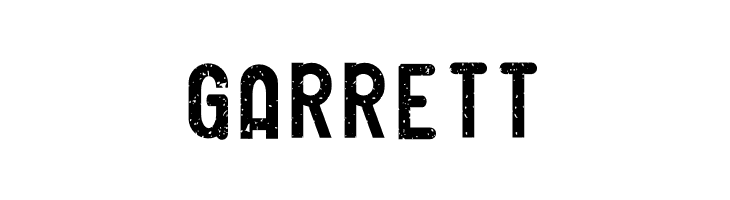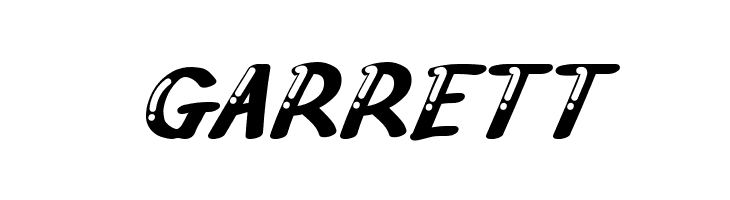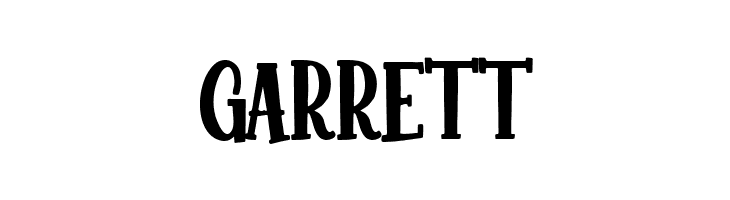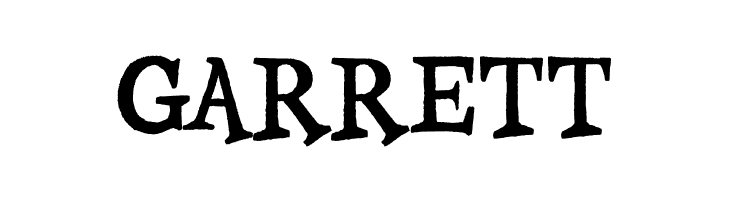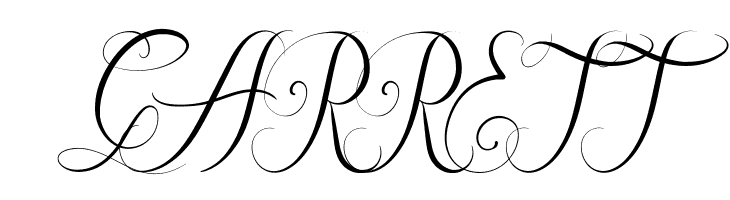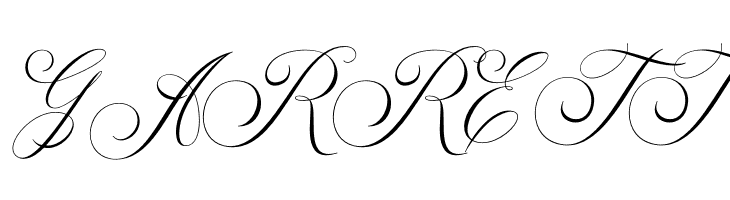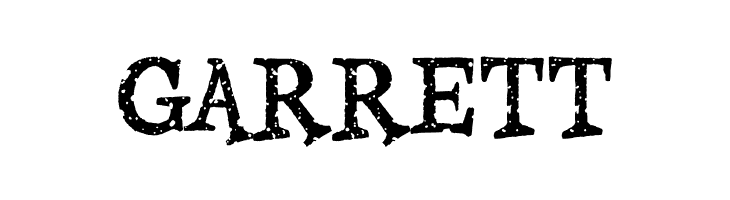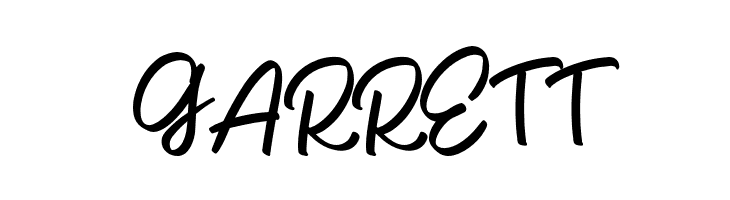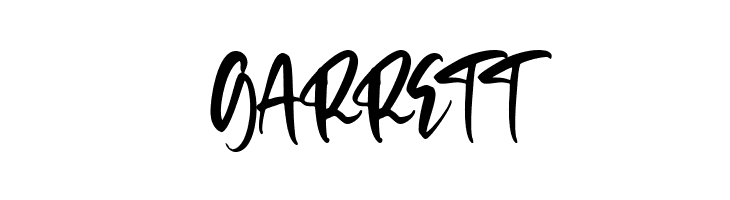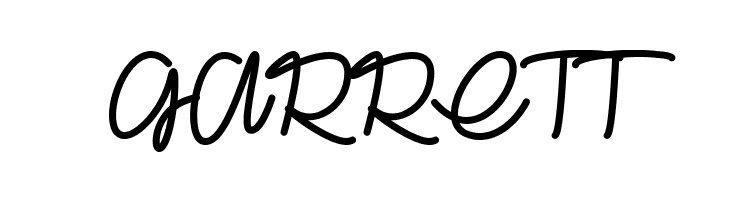
A bold, playful, and decorative font with a whimsical touch.
A flowing, cursive script font with a natural, handwritten style.
A decorative and artistic font with elongated, detailed letterforms.
An elegant script font with intricate swashes and high contrast, ideal for formal uses.
A bold, expressive script font with a hand-drawn, dynamic style.
A bold, geometric font with a modern, industrial look.
A bold, distressed font with a rugged, grunge appearance.
A bold, italic font with a modern and dynamic style.
A lively script font with smooth, connected strokes and elegant curves.
A bold, distressed font with a glitch effect for a modern, edgy look.
A playful and elegant handwritten script font with flowing lines and a cursive style.
A playful and energetic script font with fluid, continuous strokes.
A playful, handwritten script font with smooth, flowing characters.
Handwritten, tall sans-serif with playful, rounded forms.
Handwritten script with smooth, connected strokes and a casual, elegant vibe.
A lively, cursive font with fluid connections and medium contrast.
A playful and energetic script font with fluid, dynamic strokes.
A bold, dripping font with a playful, spooky aesthetic.
A playful, dripping font with a bold, cartoonish style.
A playful, hand-drawn font with tall, narrow letters and a whimsical style.
A distressed, textured font with a grunge-like aesthetic, ideal for edgy designs.
A playful, hand-drawn font with wavy lines and a spooky aesthetic.
A playful, bold font with rounded, bubble-like characters.
A bold, playful font with rounded, bubbly characters and a dynamic feel.
A playful, bubbly font with bold outlines and exaggerated curves.
A bold, italic outline font with a playful and dynamic style.
An elegant script font with intricate swashes and a calligraphic style.
A bold, decorative font with a playful highlight effect.
A lively and expressive handwritten font with fluid strokes.
A playful and elegant handwritten font with dynamic cursive letters.
A lively handwritten font with fluid, cursive strokes and a personal touch.
An elegant, flowing script font with decorative loops and swirls.
A classic serif font with elegant strokes and medium contrast, perfect for traditional and refined designs.
A classic serif font with elegant lines and a sophisticated appearance.